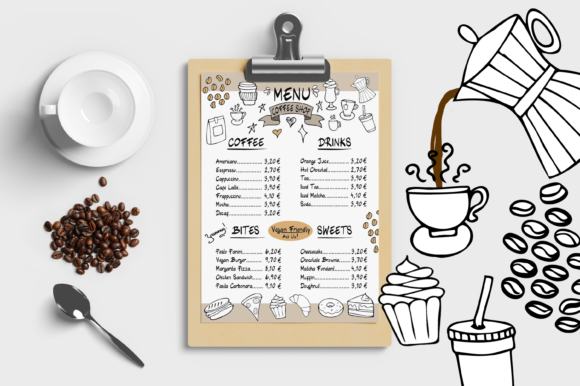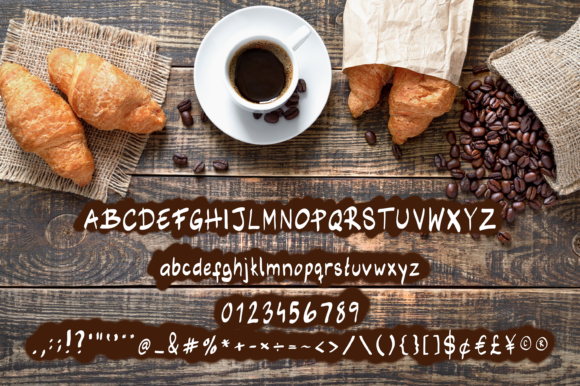
Fika Moment Font
db-ku.com - Script & Handwritten -- Fika Moment is a quirky and fun handwritten font that will perfectly complement your informal creative projects!